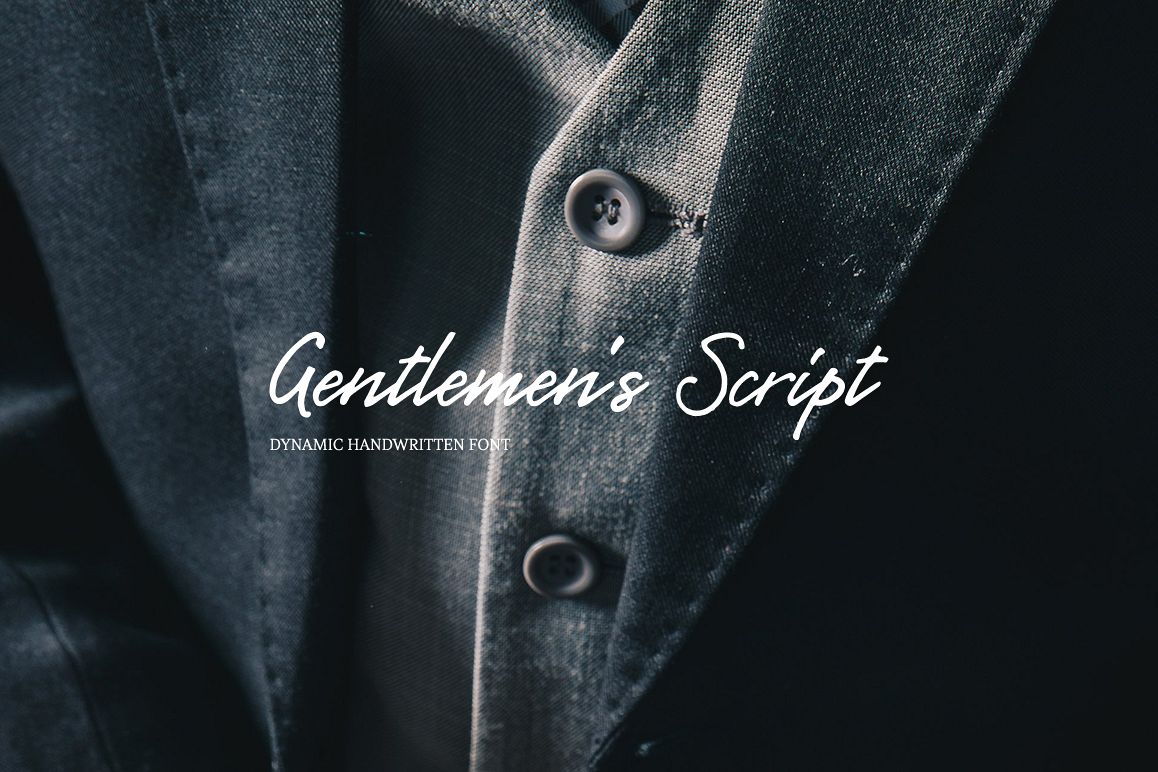
Gentlemen's Script
Gentlemen's Script is a dynamic hand-written script in which the sharpness and speed of writing harmoniously coexist with elegance and a serious attitude. The script allows you to simulate fast inscriptions made by hand while keeping them elegant and classy.
Working on the project, we wanted to develop a script that would harmoniously complement serifs or traditional sans-serifs and perfectly match them. Gentlemen's Script is like an accessory in a gentleman's wardrobe. It dilutes font traditions and adds brightness and dynamics to them.
Despite the fact that the script was designed to be used as a complementary font, it has all the prerequisites to become the main character of your design story. It does not matter how you use it—Gentlemen's Script easily adapts to reality and always works at the maximum level of efficiency.
To make the script more harmonious and natural, we have drawn more than 60 ligatures. In order for the ligatures to be substituted automatically, we recommend always keeping the standard ligatures OpenType feature turned on! In addition, there are several alternative characters in the font that are programmed on the OpenType feature contextual alternates and which are used when the letter meets the service characters.